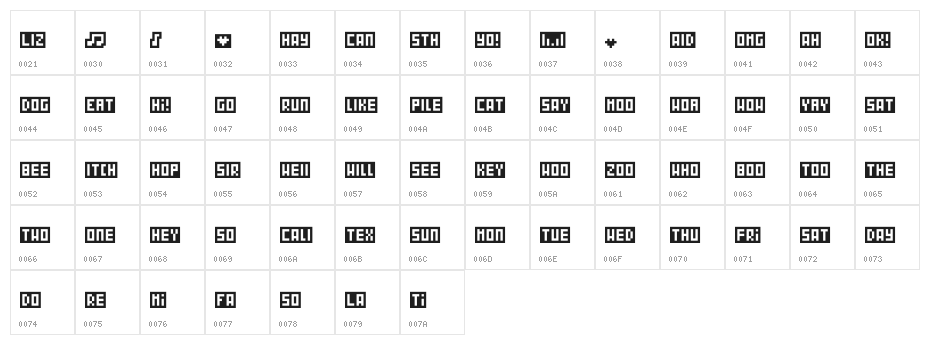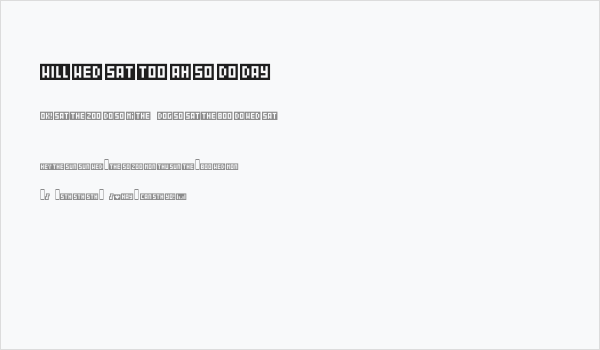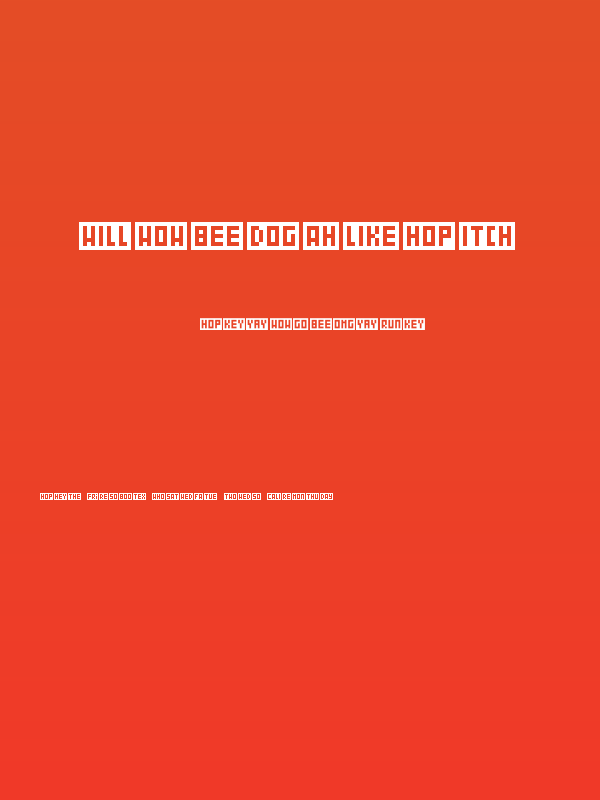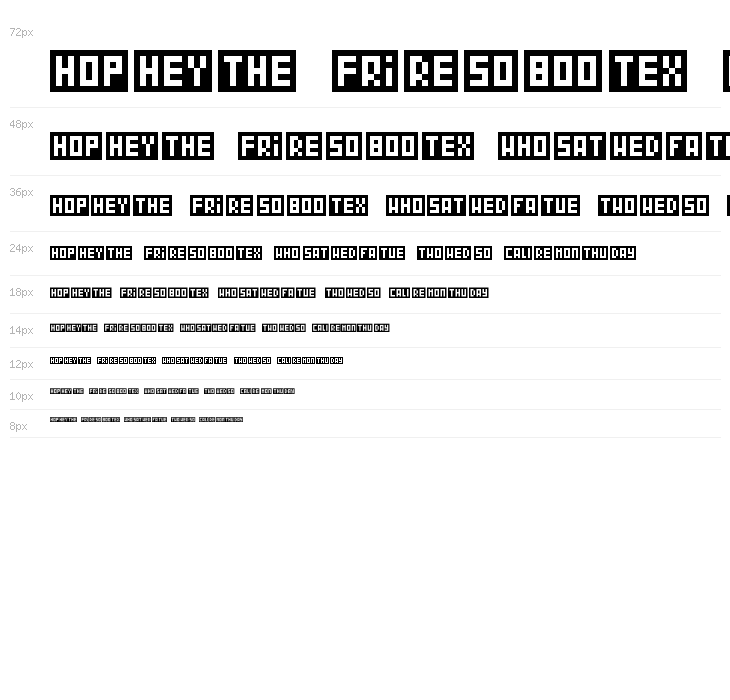
WordBits Font
WordBits Description
This font features a bold, blocky style with a strong geometric influence. Each character is enclosed within a square, giving it a pixelated, retro appearance reminiscent of early digital displays or video games. The uniformity in height and width across all characters creates a cohesive and structured look. The font is highly legible due to its clear, distinct lines and lack of serifs, making it suitable for digital interfaces or any project requiring a modern, tech-inspired aesthetic. The characters are evenly spaced, contributing to its clean and organized presentation.
| Overall Style | Modern, Retro |
| Use Case | Headlines, Logos, Digital interfaces |
| Proposed Projects | Ideal for video game design, tech-themed posters, digital interfaces, and retro-style branding. |